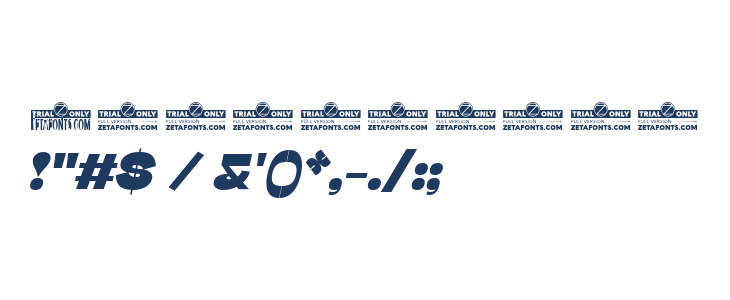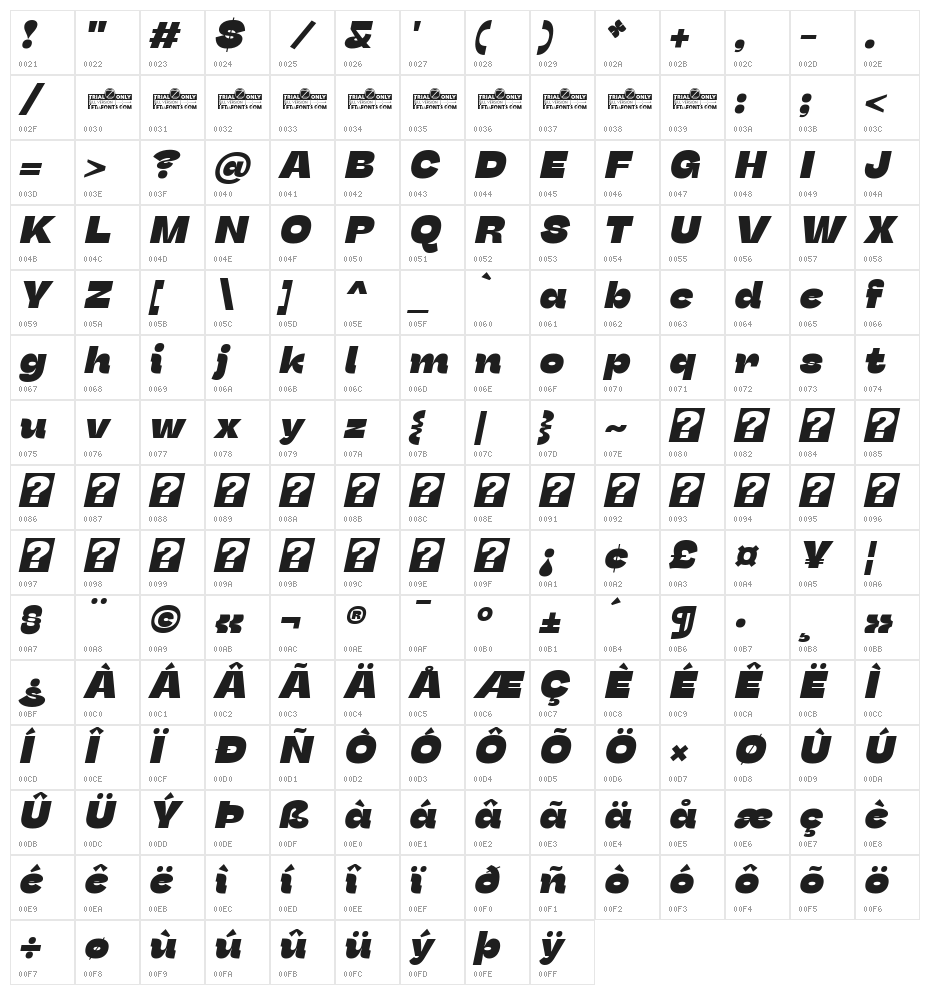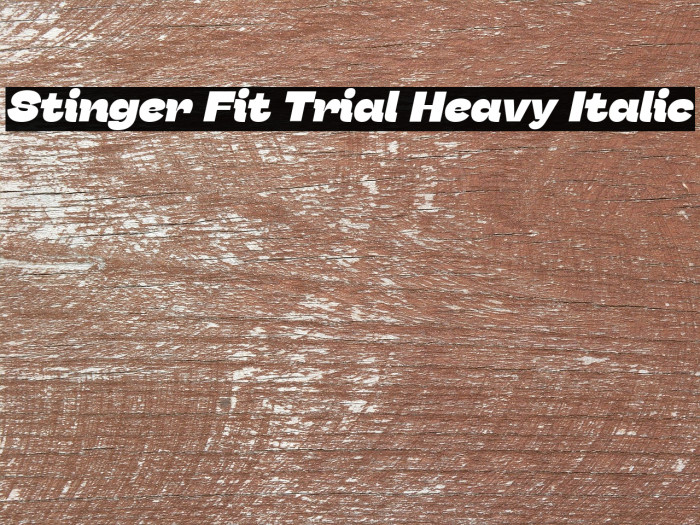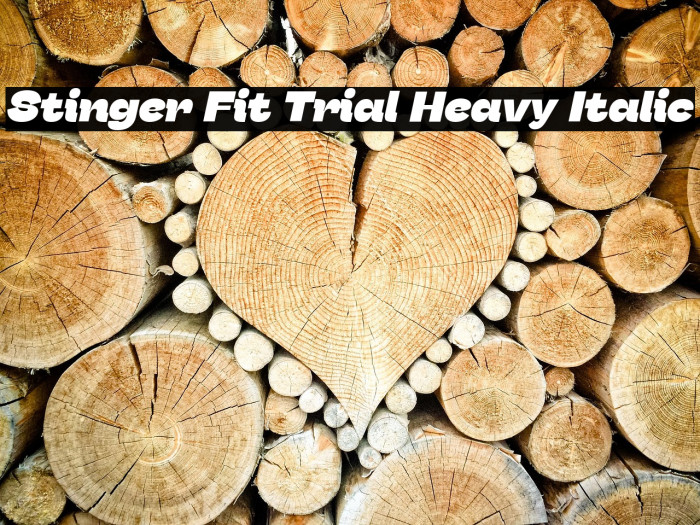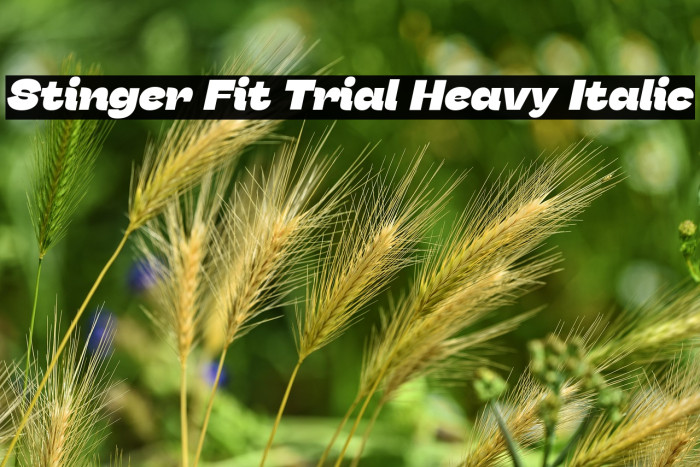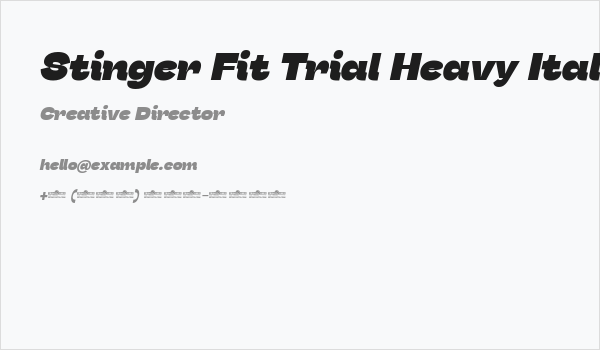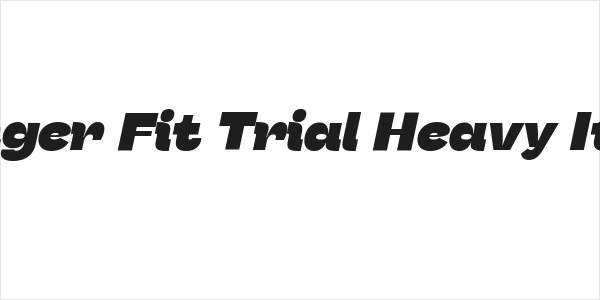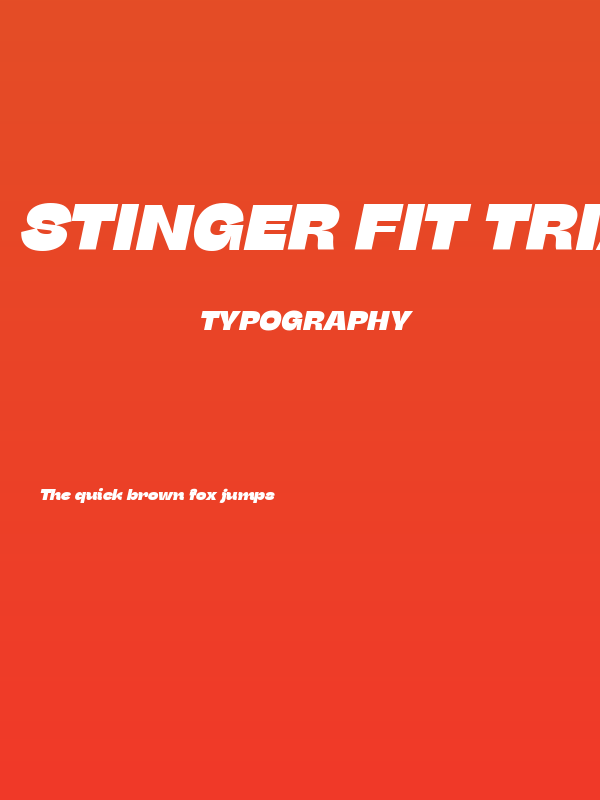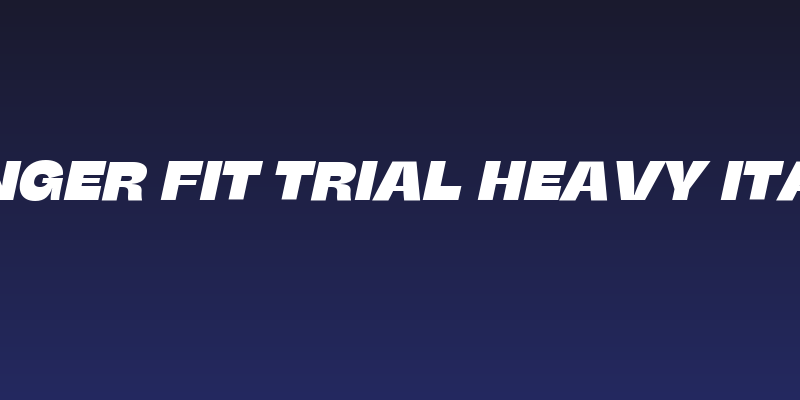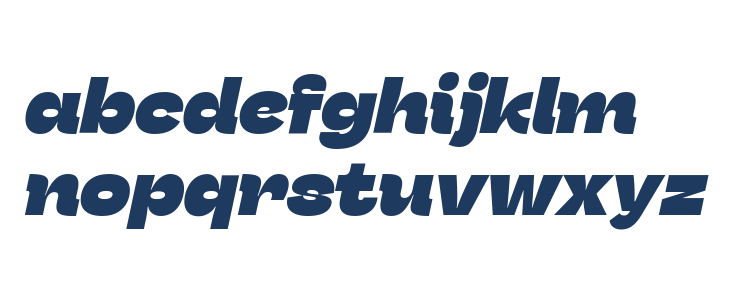
Stinger Fit Trial Heavy Italic Font
Stinger Fit Trial Heavy Italic Description
This font features a bold and dynamic style with a strong italic slant, giving it a sense of motion and energy. The characters are heavy and robust, with a consistent stroke width that emphasizes their boldness. The design is modern and slightly aggressive, making it suitable for impactful headlines and attention-grabbing text. The uppercase and lowercase letters maintain a uniform style, with rounded edges that soften the overall appearance. The numerals and special characters are designed to match the bold and italicized nature of the alphabet, ensuring a cohesive look across all text elements.